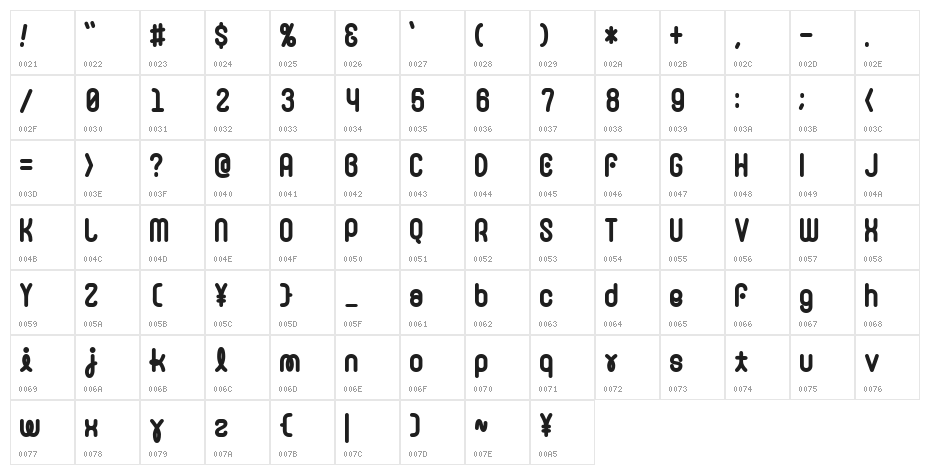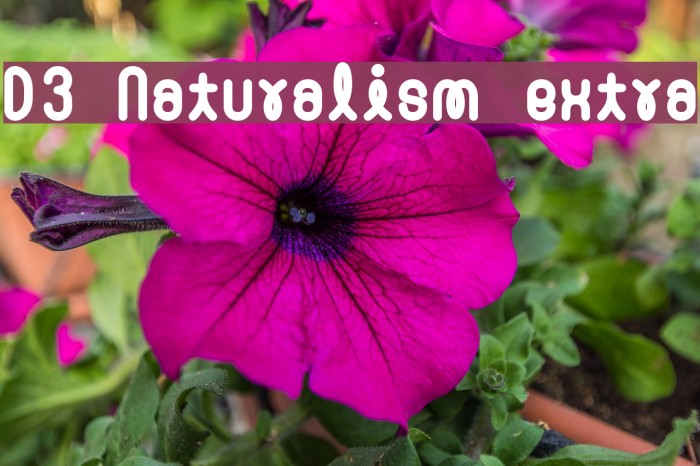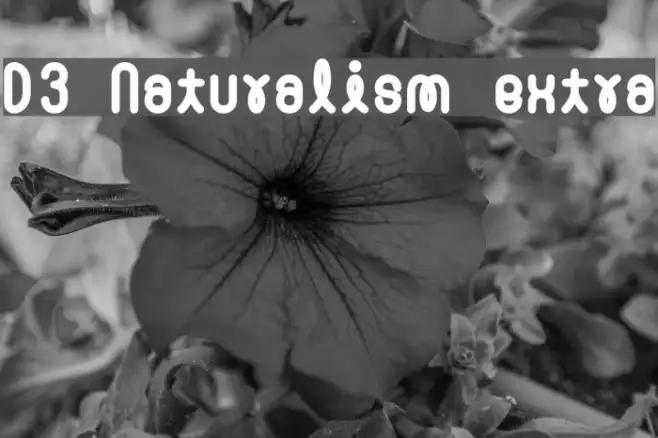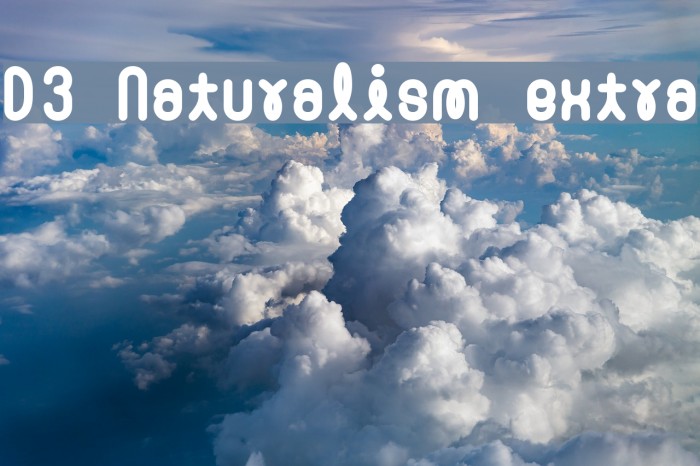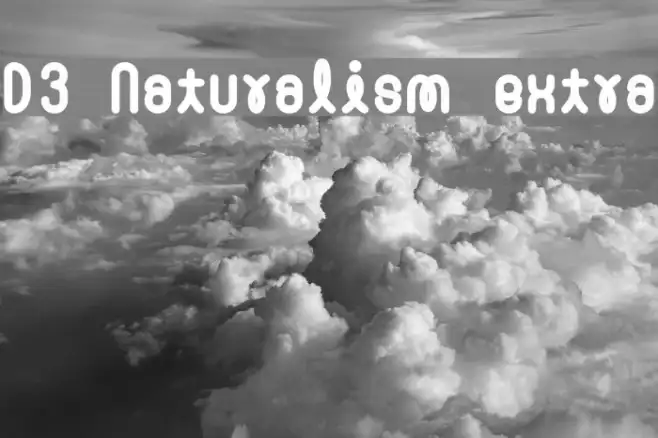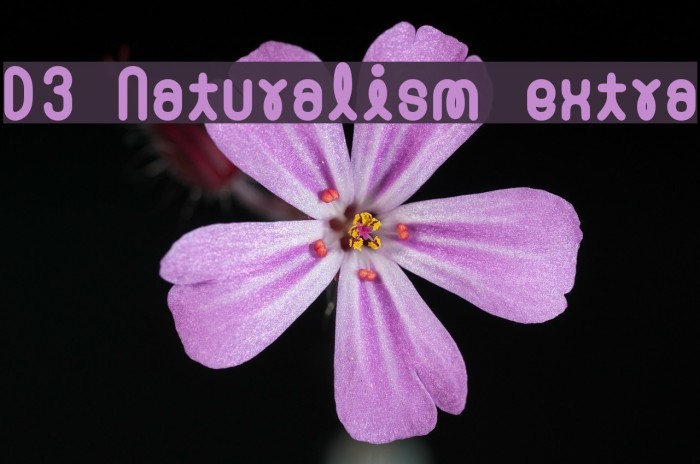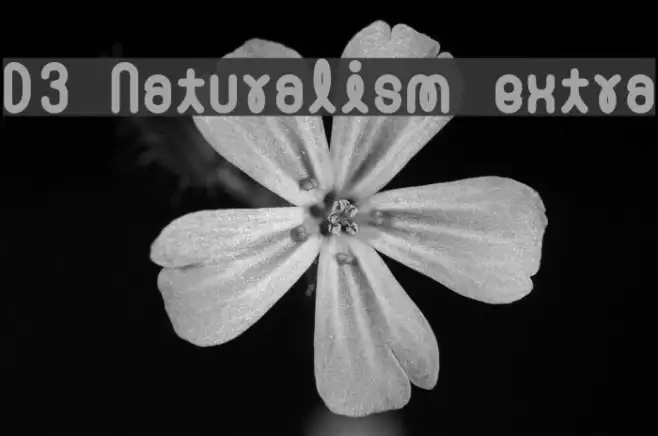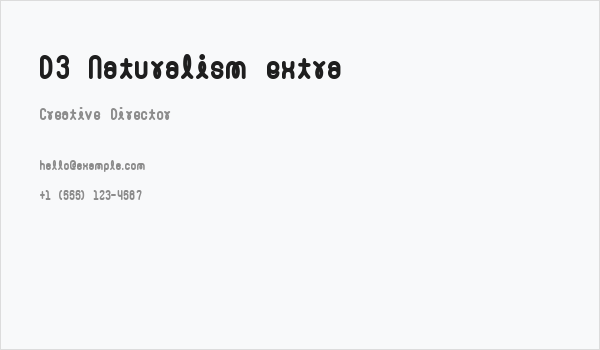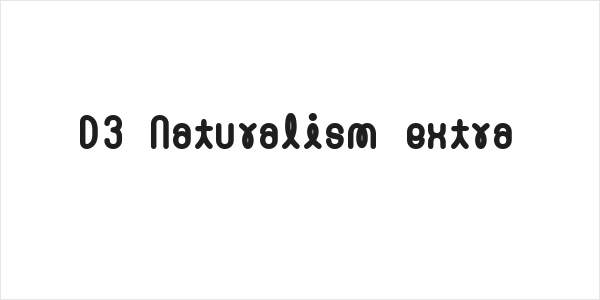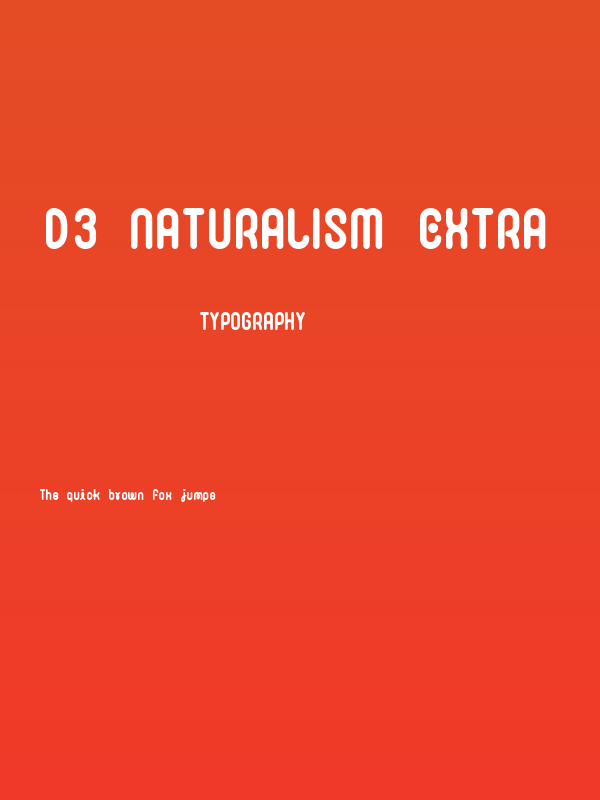
D3 Naturalism extra Font
D3 Naturalism extra Description
This font features a bold and rounded style with a playful and modern aesthetic. The characters are uniformly thick, creating a strong visual impact. The rounded edges and consistent stroke width give it a friendly and approachable feel. It includes a full set of uppercase and lowercase letters, numbers, and a variety of special characters. The design is clean and legible, making it suitable for various applications where a bold statement is desired.
| Proposed Projects | Ideal for branding, headlines, posters, and packaging design where a bold and friendly look is needed. |